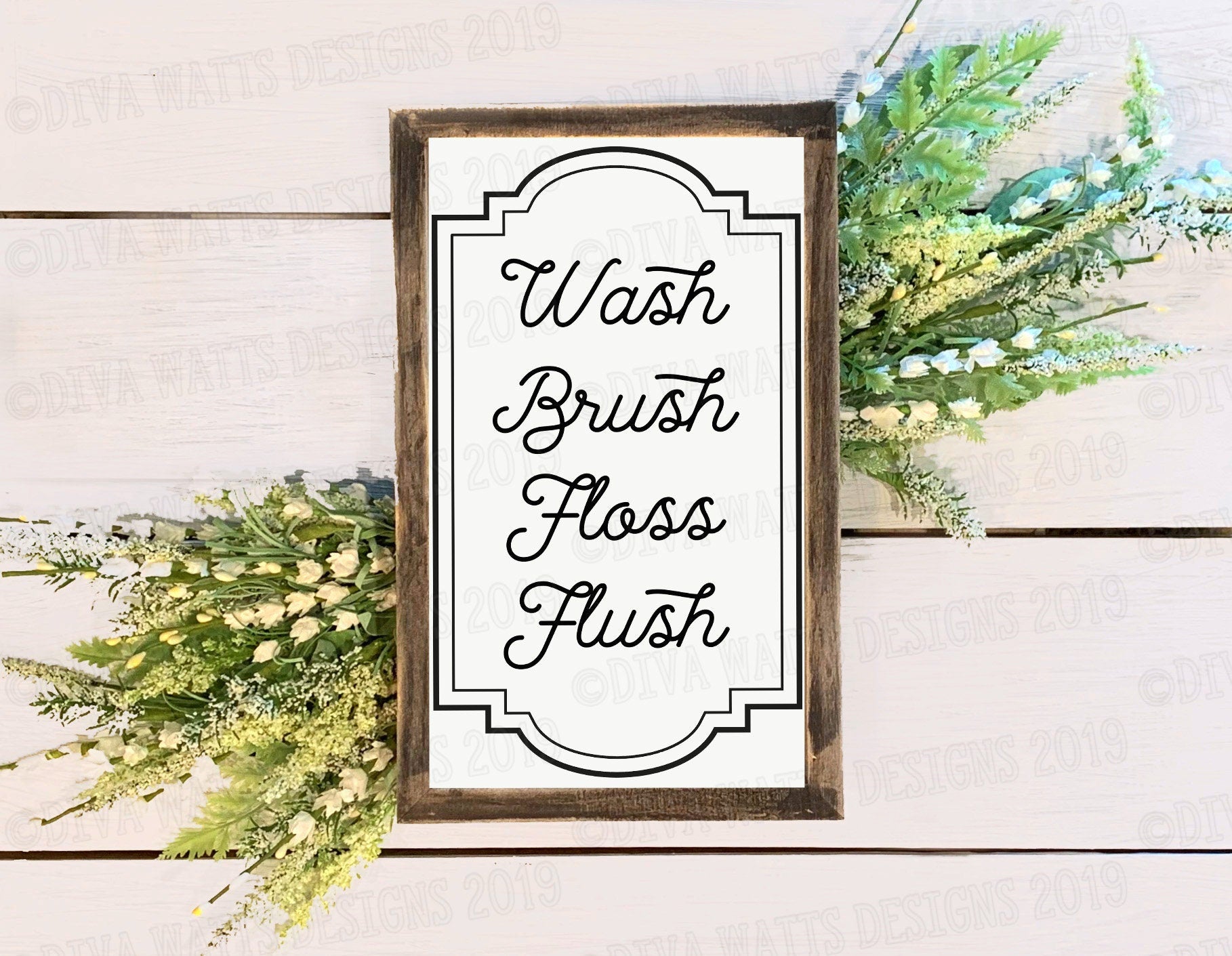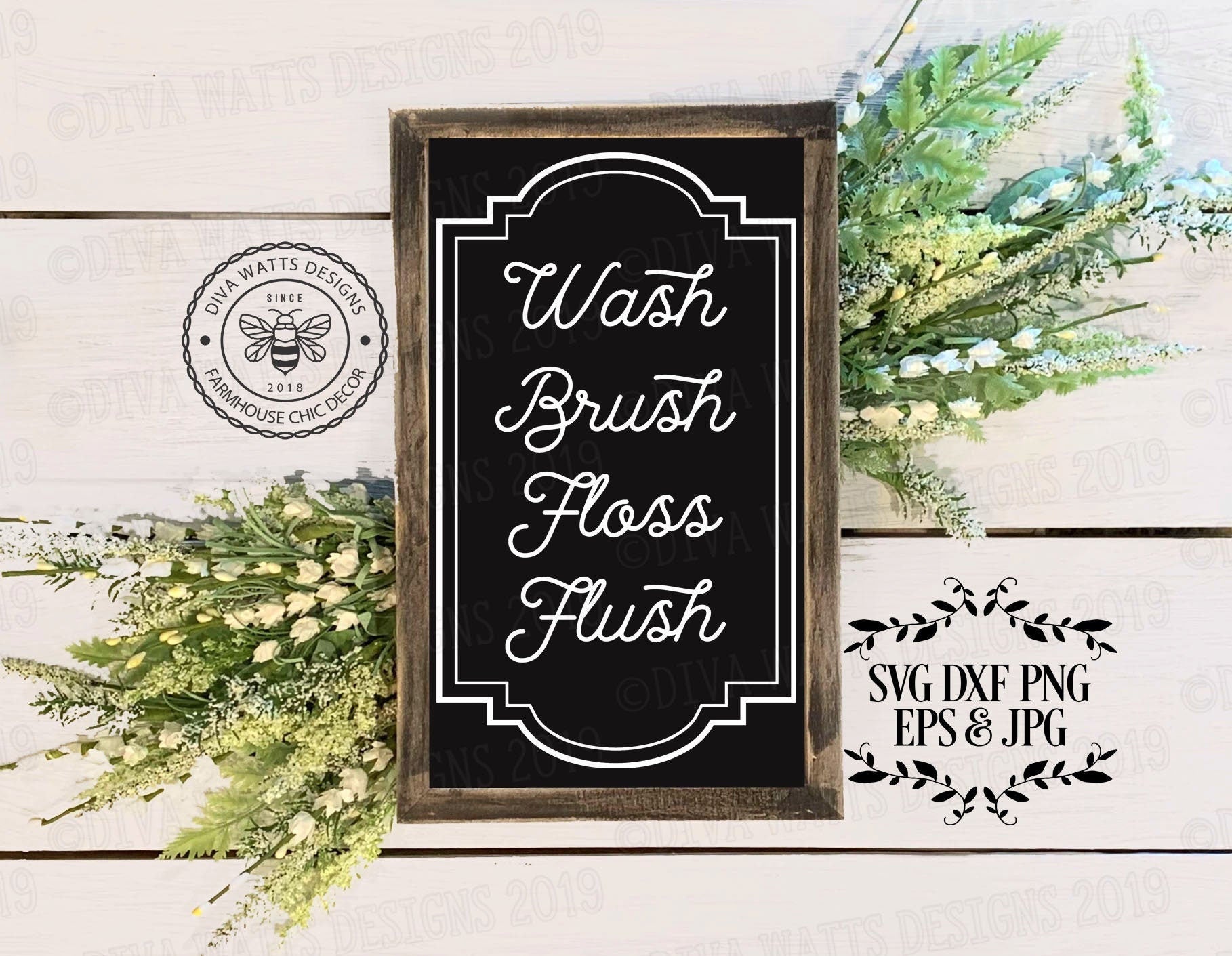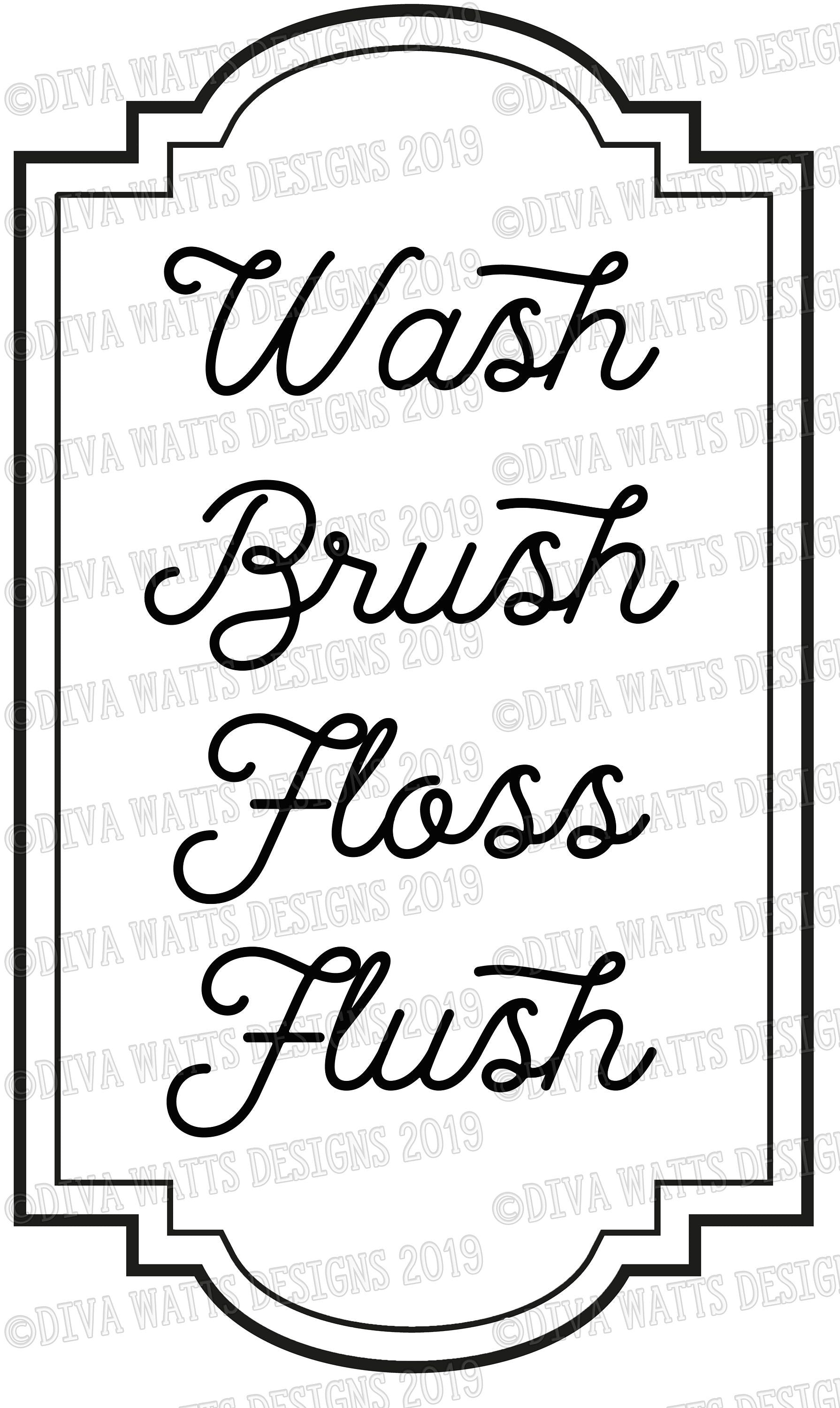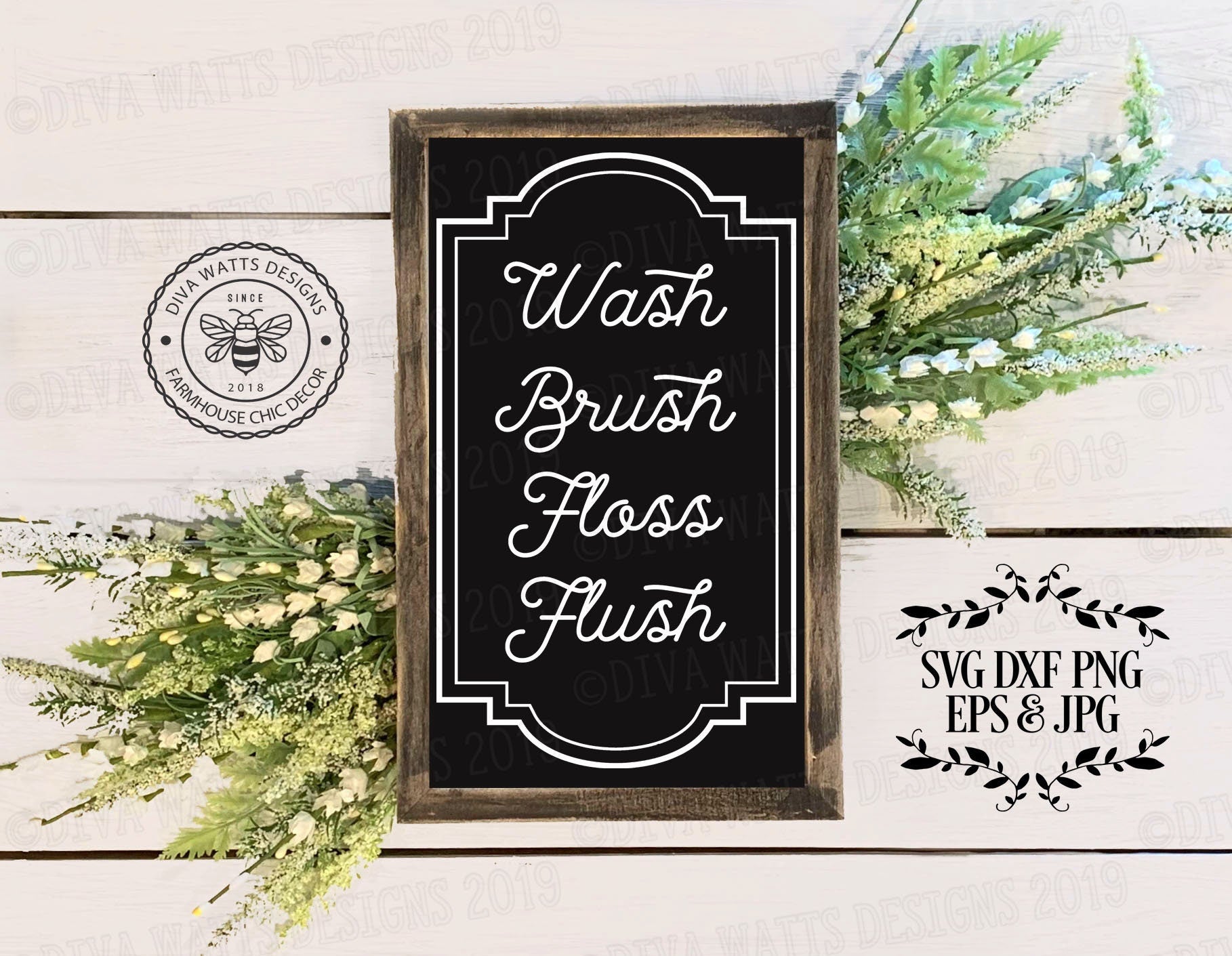
Fixer Upper Style Monoline Bathroom Sign Cutting File and Clipart
Wash
Brush
Floss
Flush
In a vintage style border frame with monoline font.
Perfect for the farmhouse / rustic style bathroom!